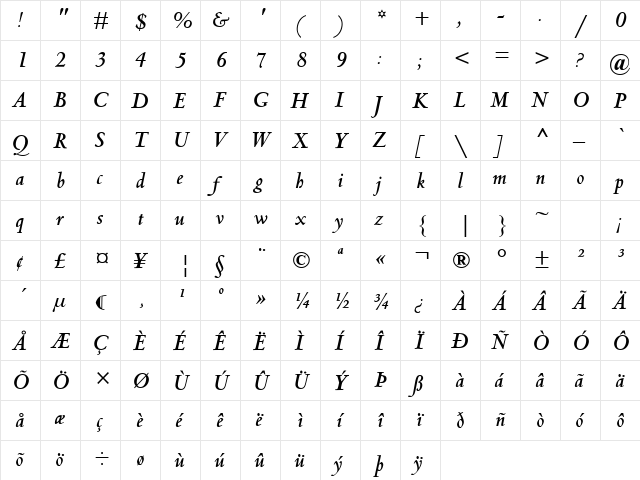
Centaur MT Bold Italic
Design Context for Centaur MT Typeface
Centaur MT offers clean, dependable letterforms without strong stylistic allegiance, making it a practical choice for designers who need flexibility. Its italic angle brings a sense of urgency and motion to the letterforms. Its bold stroke weight gives it real presence on the page.
Pro Tip: Use Centaur MT for emphasis, pull quotes, and subheadings where its slanted energy can add rhythm to the layout.